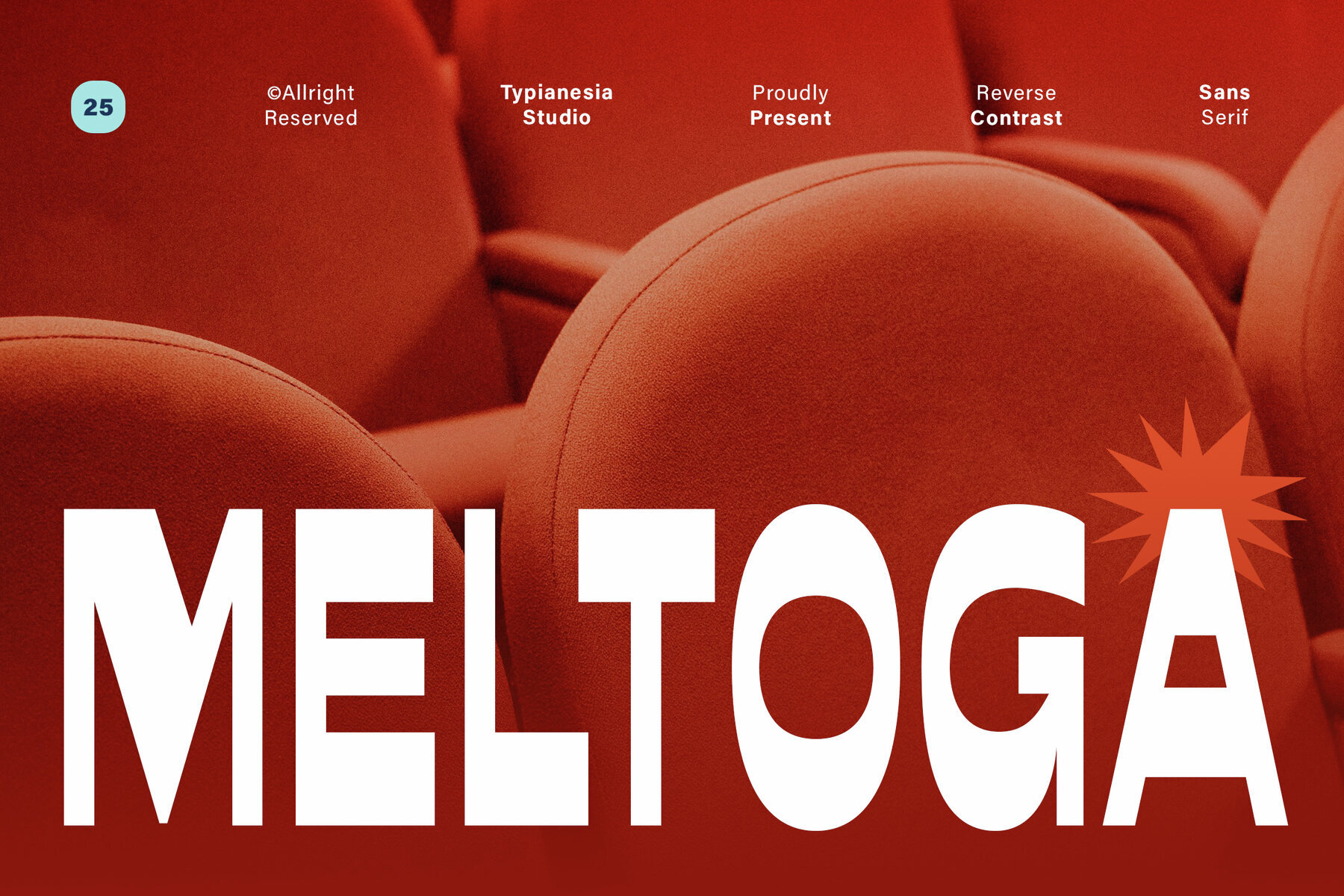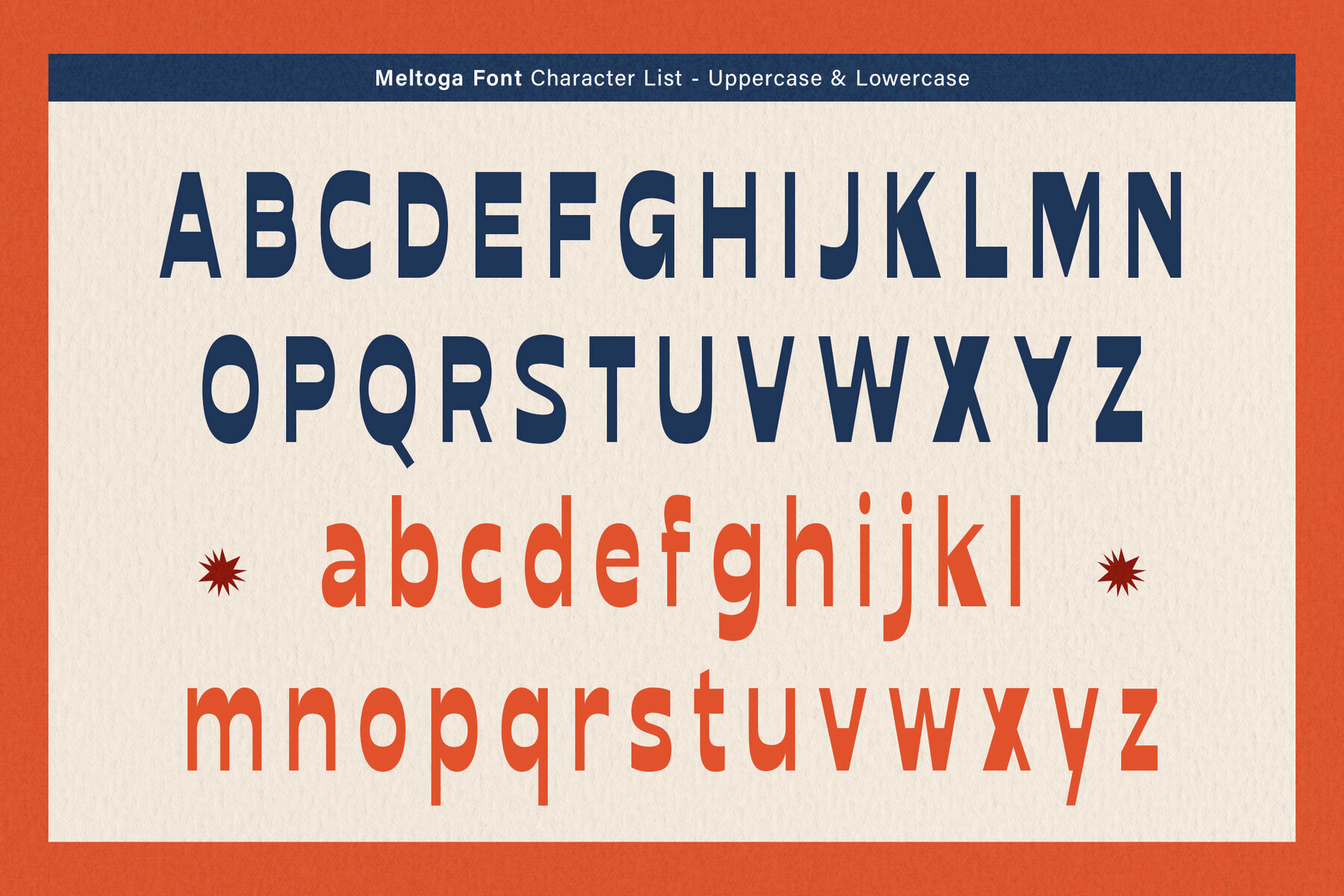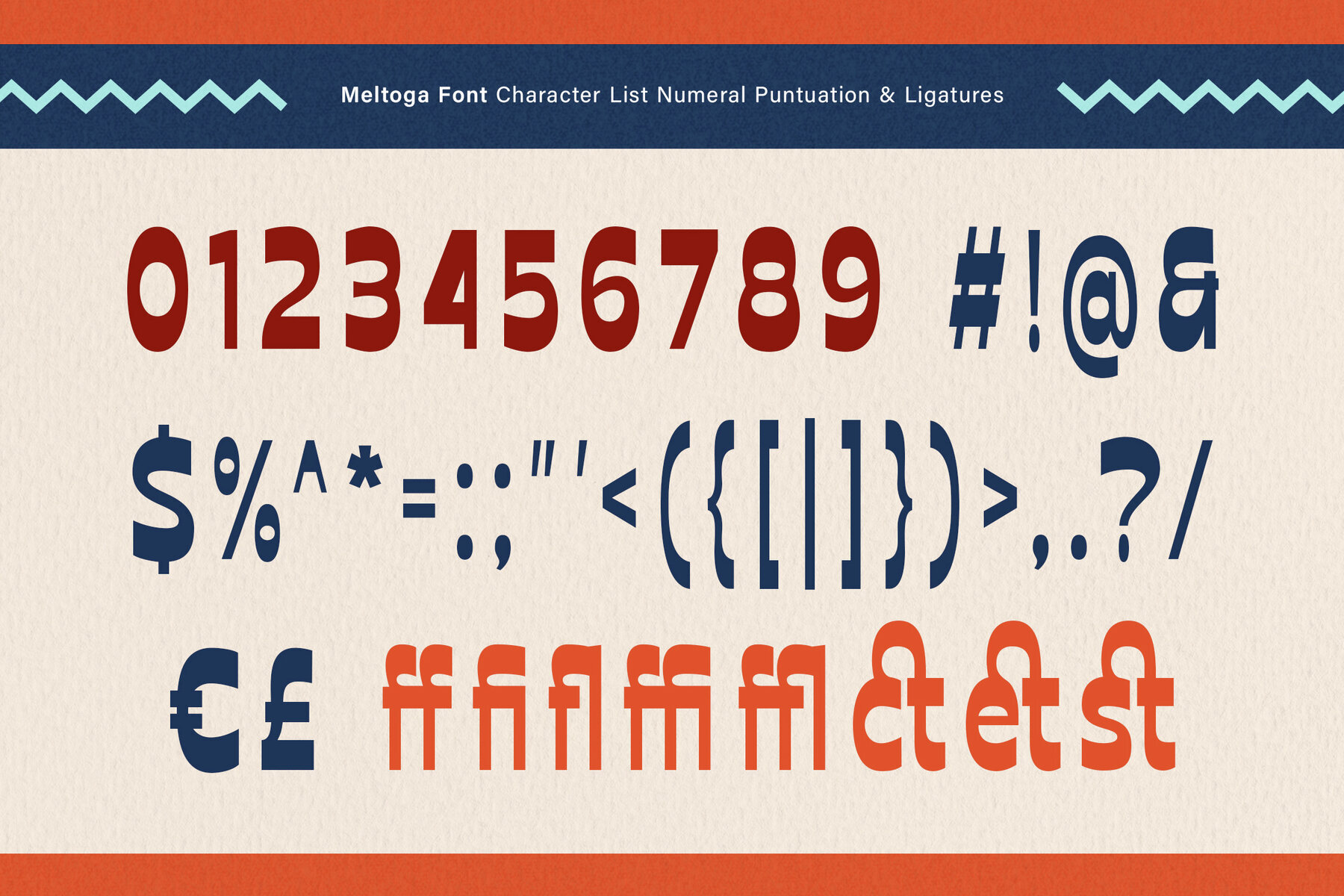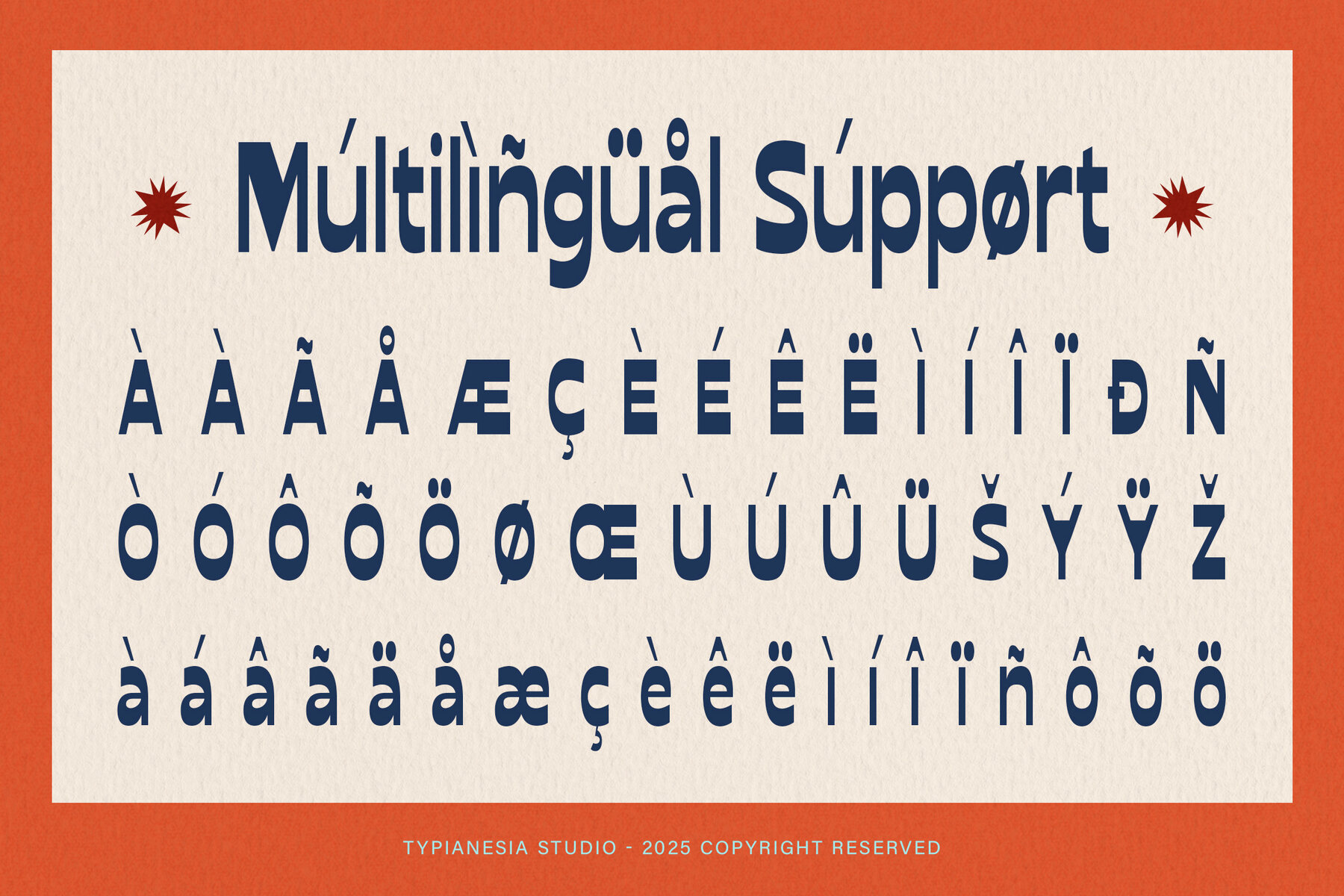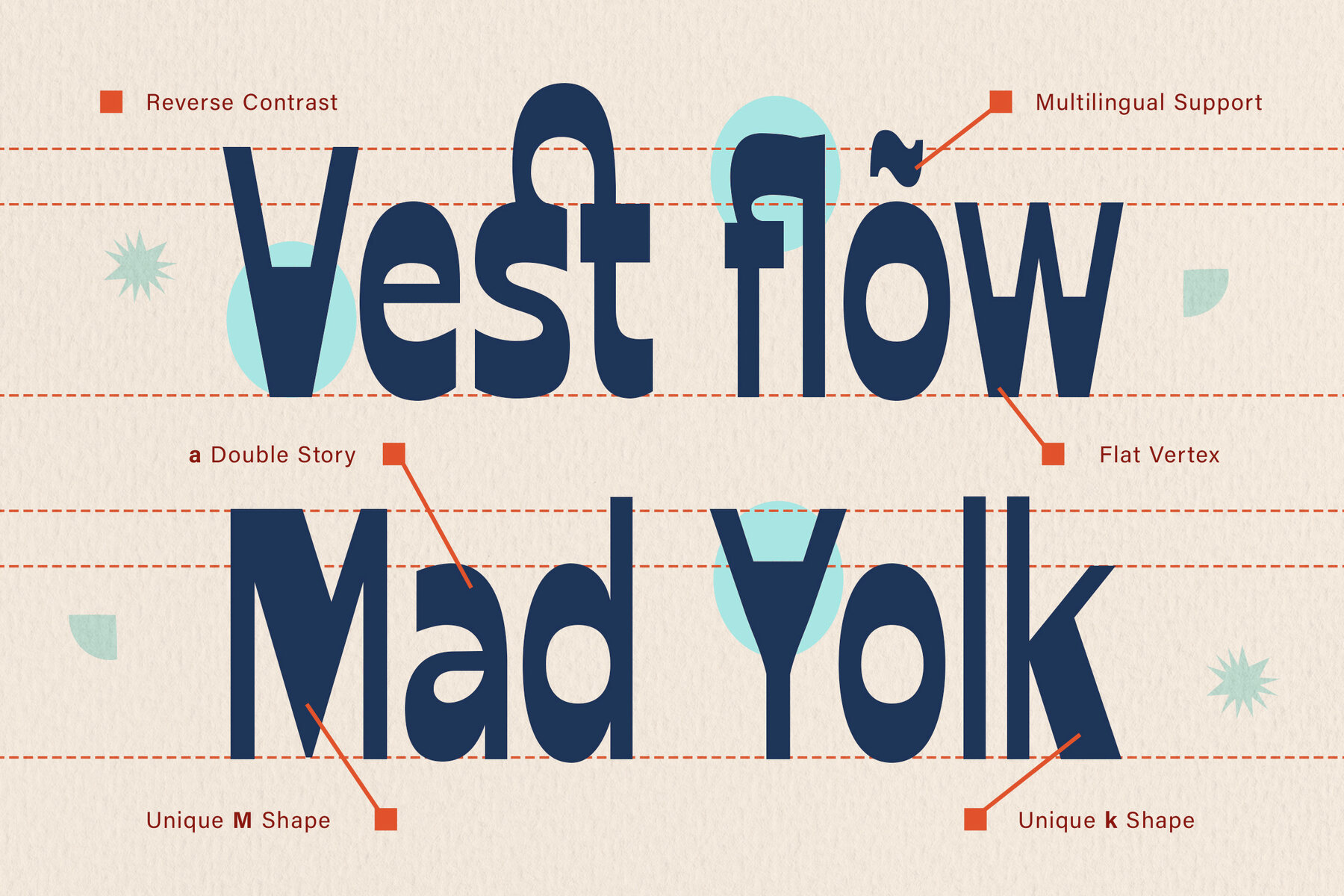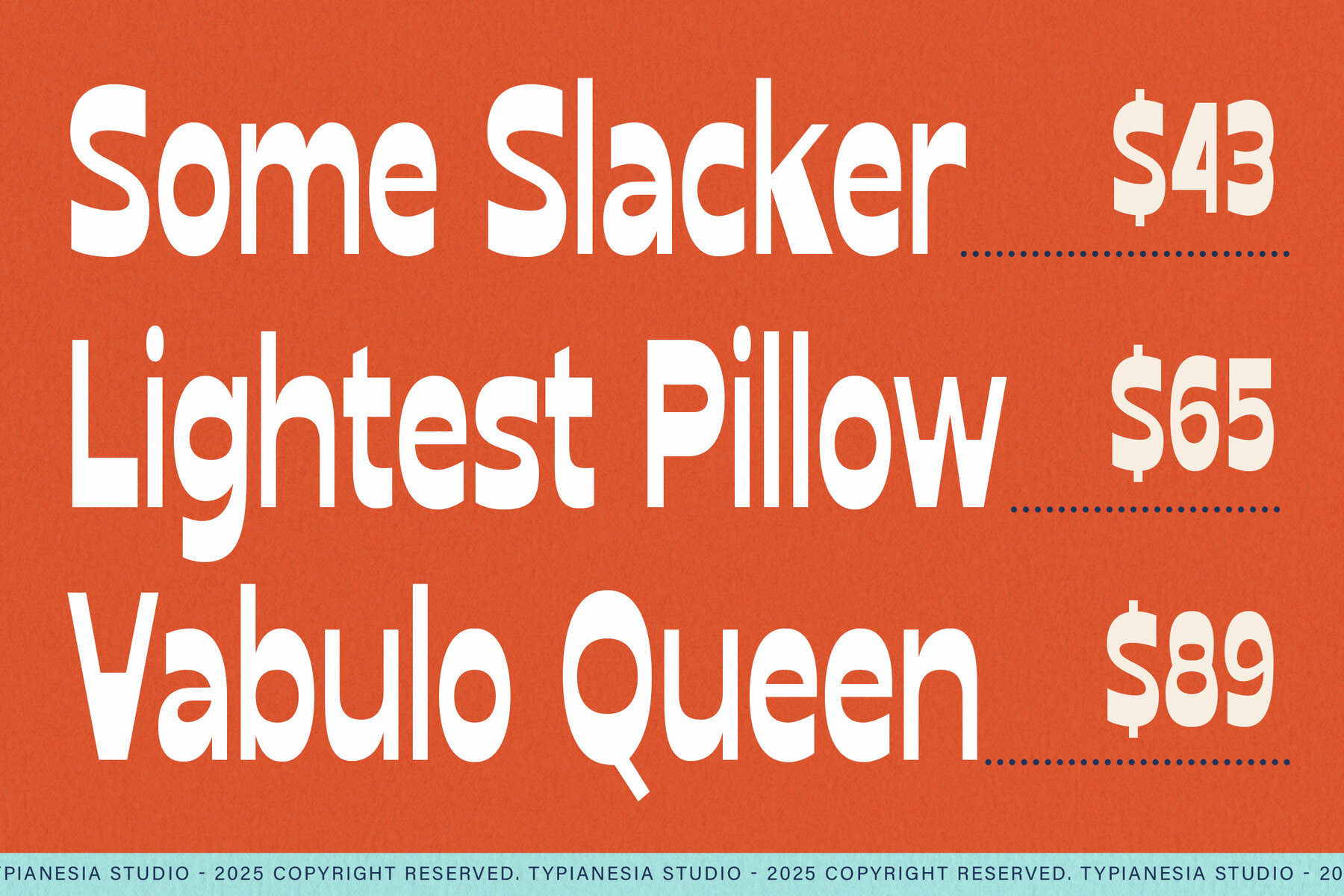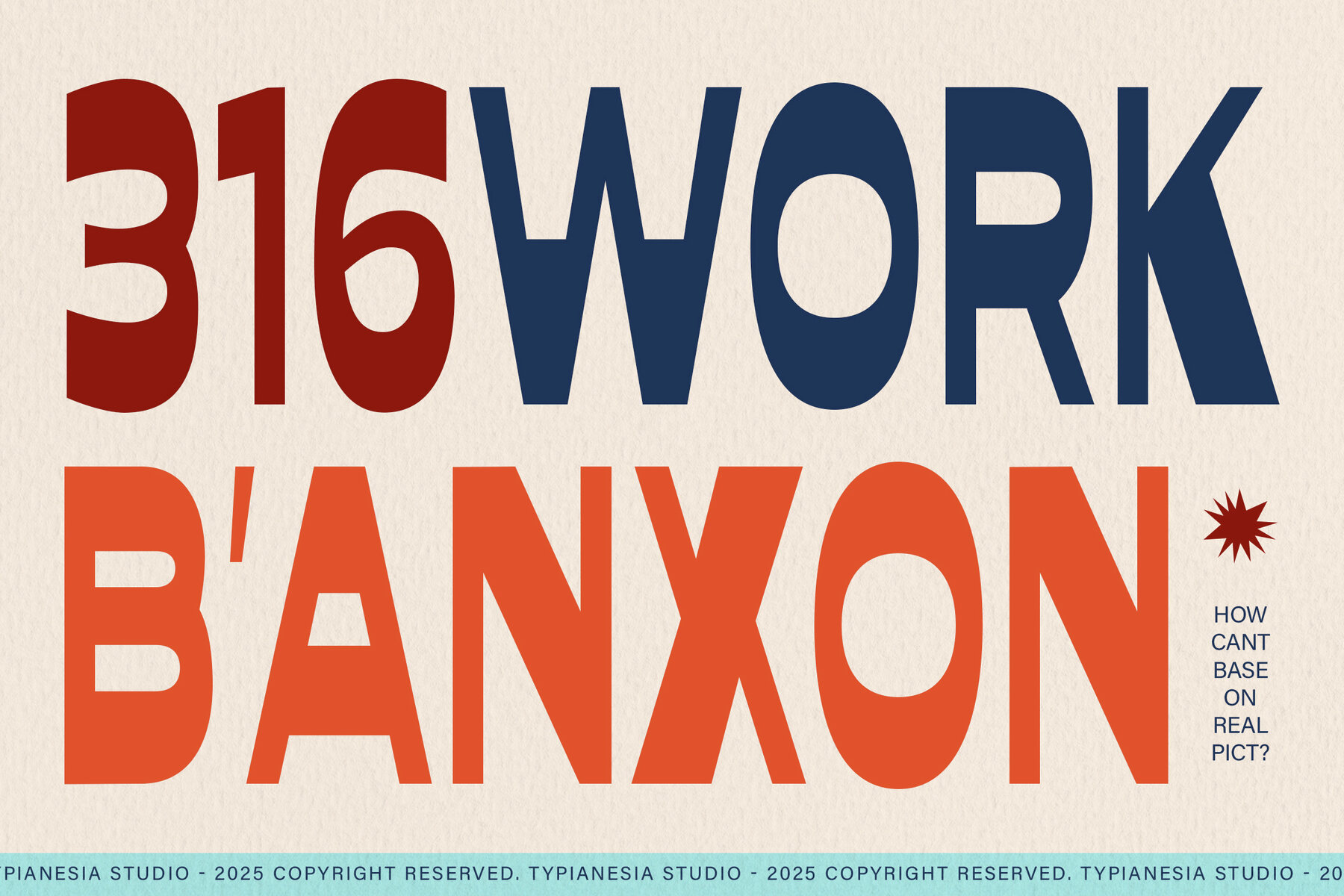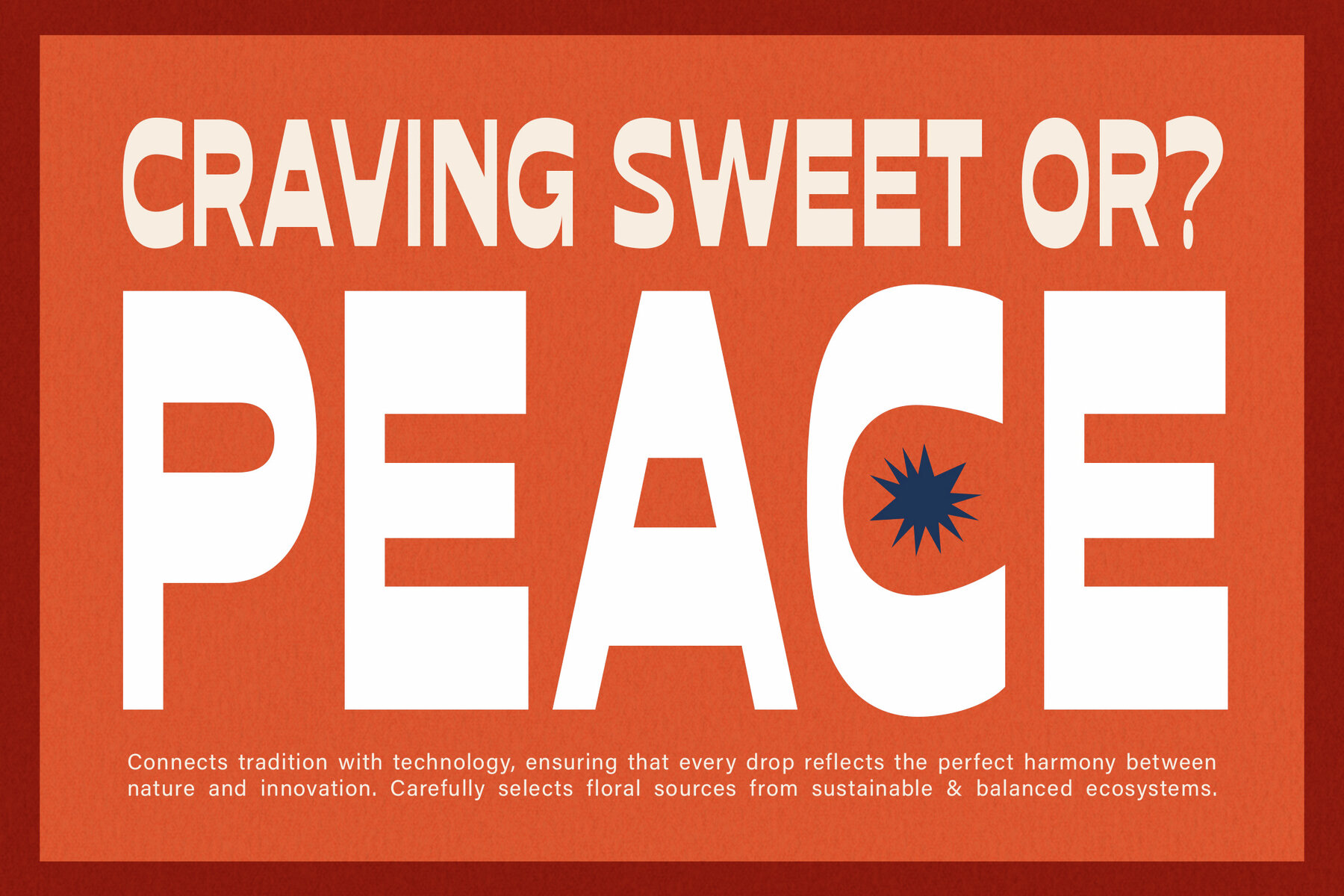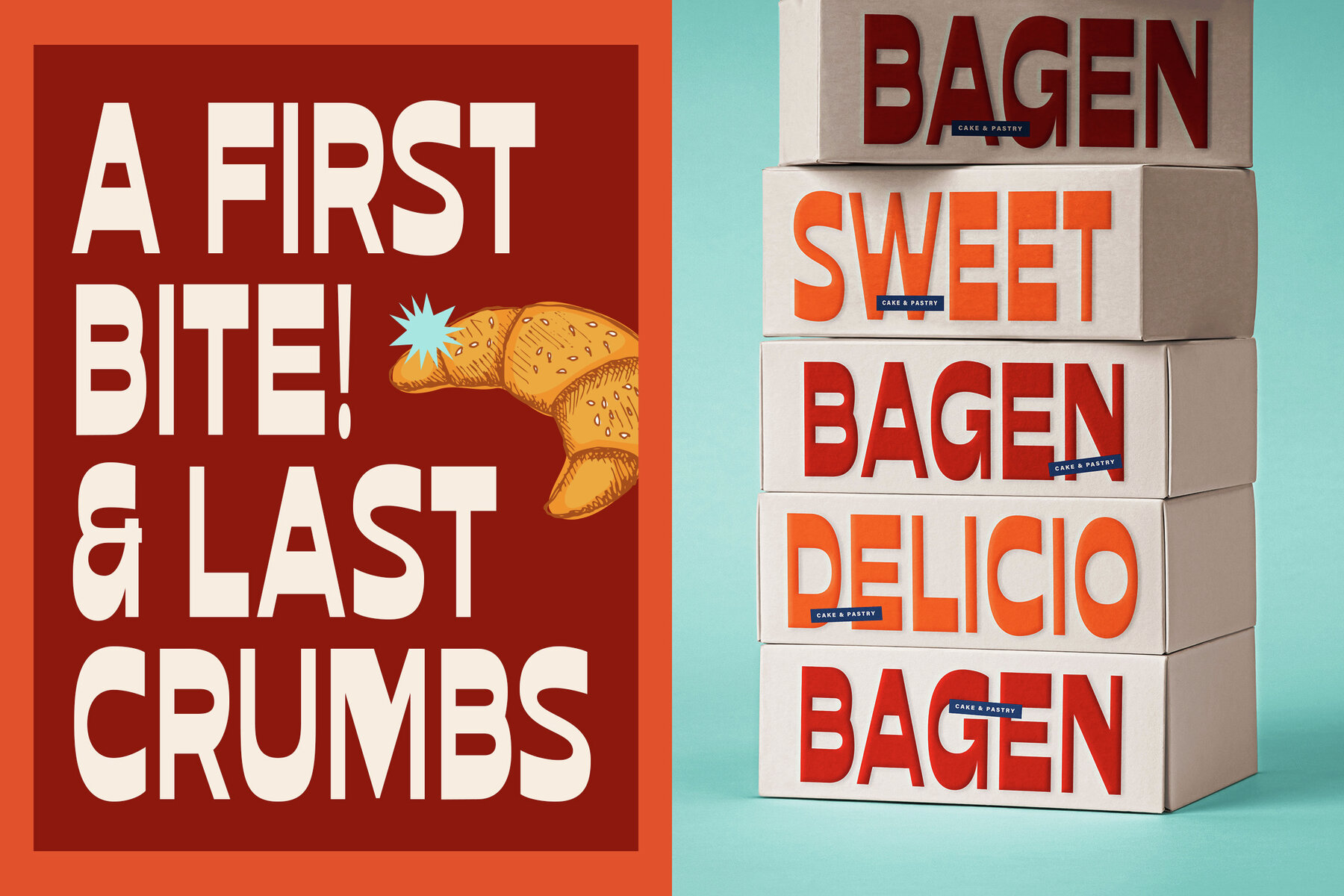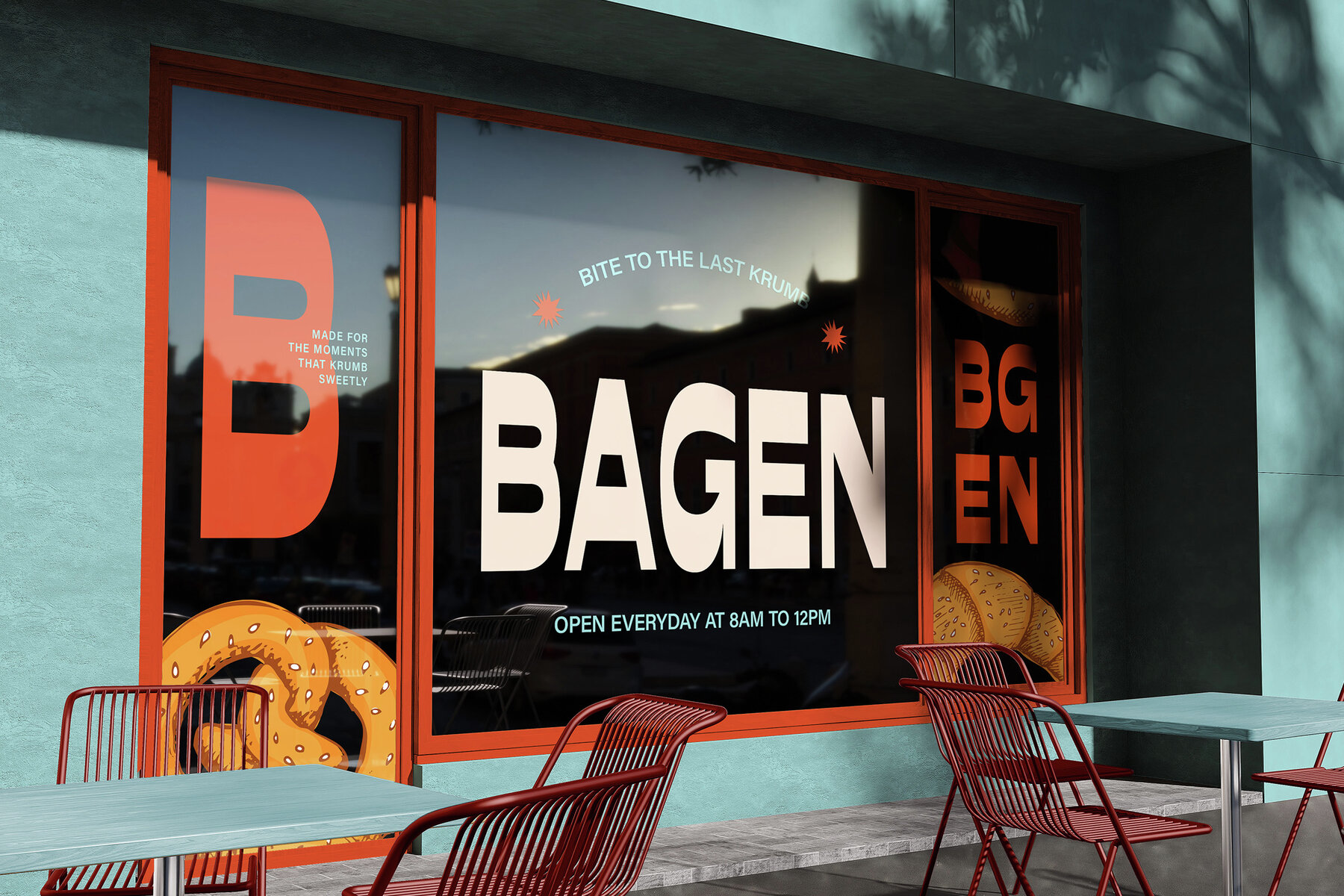
Meltoga Font
Meltoga Regular
Meltoga stands apart with its bold, condensed form and striking reverse contrast, capturing the spirited energy of 1980s graphic design. This modern display sans font brings a playful yet assertive sensibility, making it an apt choice for projects seeking both retro charm and contemporary clarity. Whether used for posters, packaging, or logo design, Meltoga ensures that headlines and brand marks retain both strong presence and personality. The structure of Meltoga lends itself to hospitality branding, especially for cafes and coffee shops that value a balance between nostalgia and modernity. Its tall proportions and unique letterforms draw the eye, while clean strokes maintain legibility at various scales. This font’s versatility makes it suitable for any design where a bold, confident tone is required.Meltoga: Bold Retro Condensed Sans With Reverse Contrast